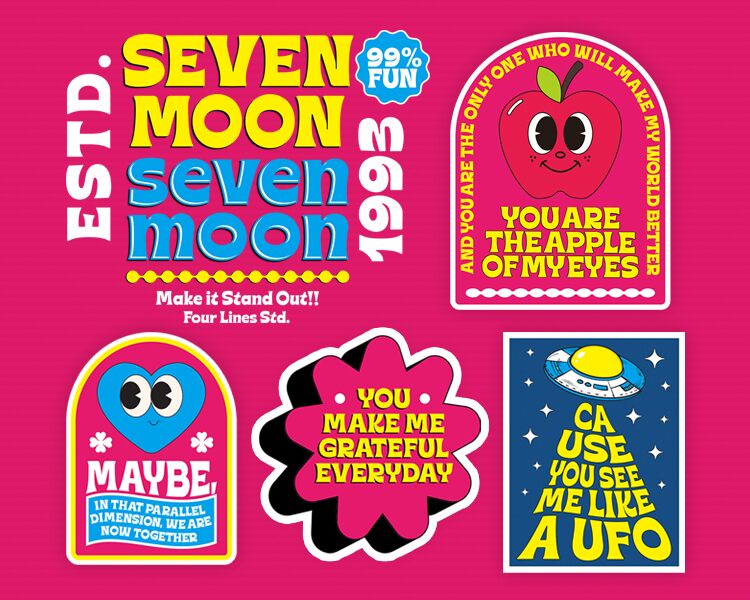
Seven Moon
Seven Moon font by Four Lines is a retro-inspired bold display font. The typeface exhibits smooth transitions and rounded shapes for a soft aesthetic that brings together modern and vintage features. It evokes nostalgia, yet it’s still creative and trendy for typography projects of the modern era.
This free display font is ideal for custom logo branding, signage designs, advertising posters, marketing flyers, website headers, packaging designs, book covers with eye-catching titles, apparel print designs like t-shirts or tote bags as well as other personal identity items.